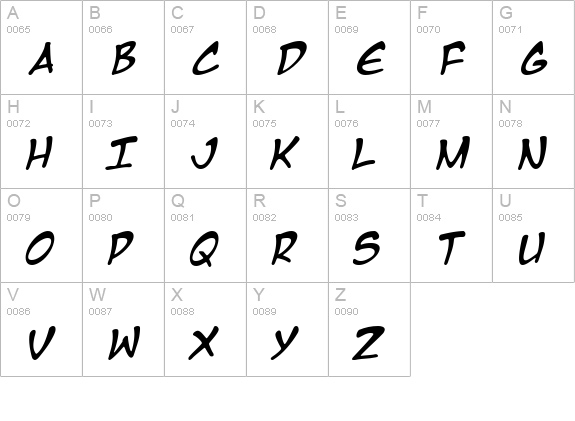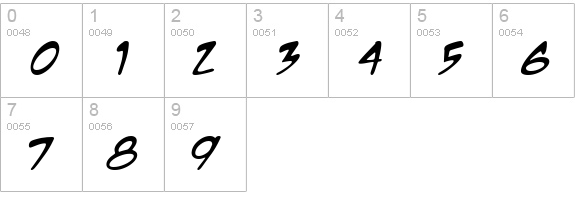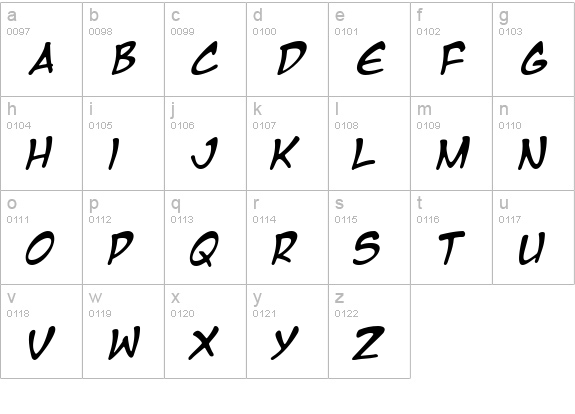
Manga Temple Italic Font Details
Manga Temple Italic is a distinctive, italic variant in the Manga typeface family \xE2\x80\x94 well suited to design and typography projects.
Manga Temple Italic font is a captivating and stylish typeface that will transport you to the vibrant world of manga and anime. With its sleek and curved letterforms, this font exudes a sense of energy and dynamism, perfect for capturing the essence of Japanese storytelling. This font's unique Italic style adds a touch of elegance and flair, making it perfect for titles, headings, and eye-catching designs. Whether you're creating a manga-inspired logo, designing a poster for a convention, or adding a playful touch to your digital artwork, Manga Temple Italic font is sure to make a lasting impression. One of the best features of Manga Temple Italic font is that it is completely free. Yes, you read that right! This font is freely available to download at FontsMarket.com, one of the most reliable sources for high-quality fonts. You can easily access this font and incorporate it into your creative projects without any cost, making it an excellent choice for both professional designers and manga enthusiasts. Not only does Manga Temple Italic font offer a visually appealing aesthetic, but it also provides excellent legibility, ensuring that your text is clear and easy to read. The carefully crafted letterforms maintain a balance between style and readability, making this font versatile and suitable for a wide range of applications. So, why wait? Download Manga Temple Italic font today and unleash your creativity. Let this font be your companion as you dive into the exciting world of manga and anime, adding a touch of authenticity and style to your designs. With its free availability at FontsMarket.com, you have nothing to lose and everything to gain. Embrace the passion and energy of manga with Manga Temple Italic font!